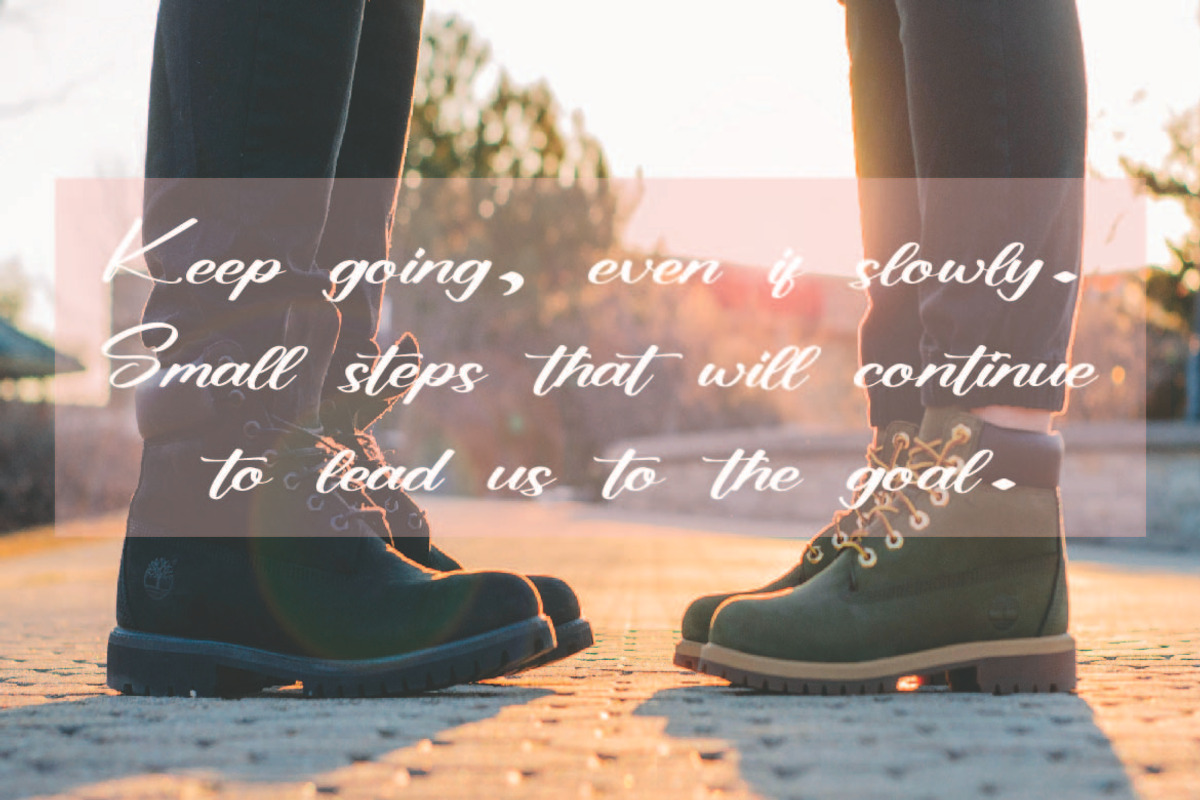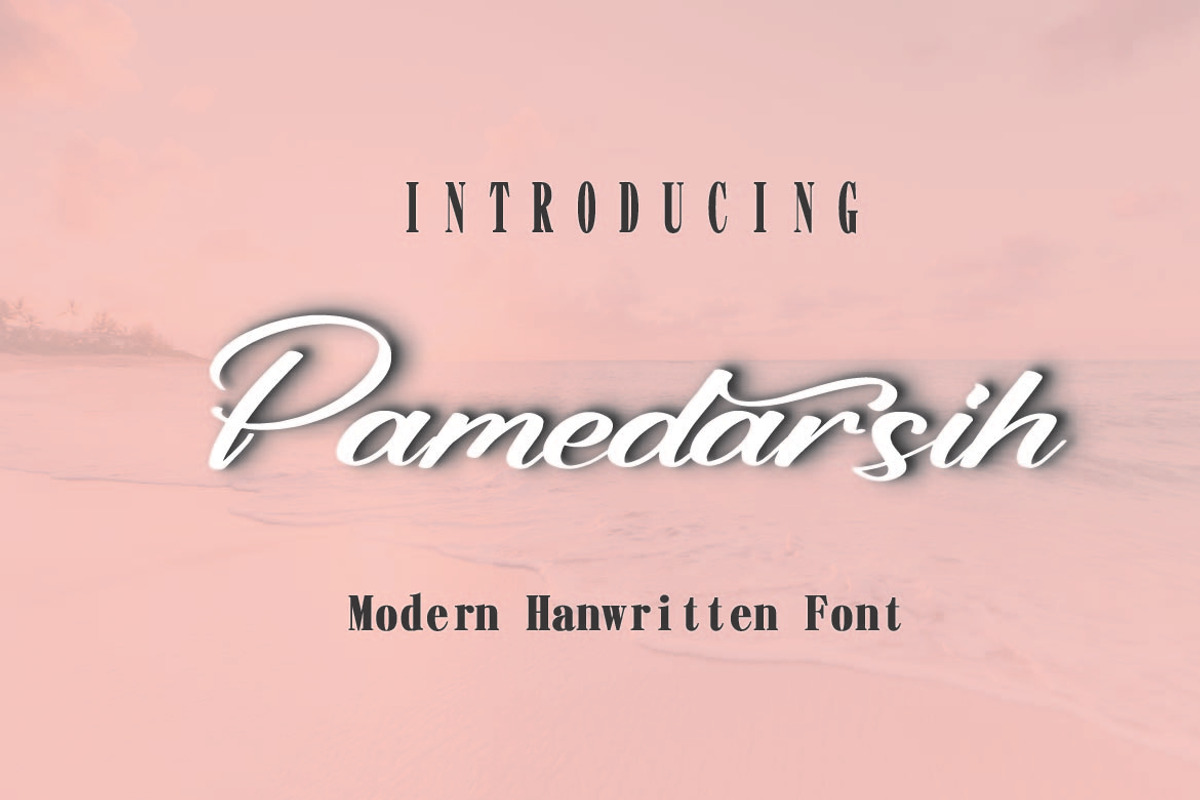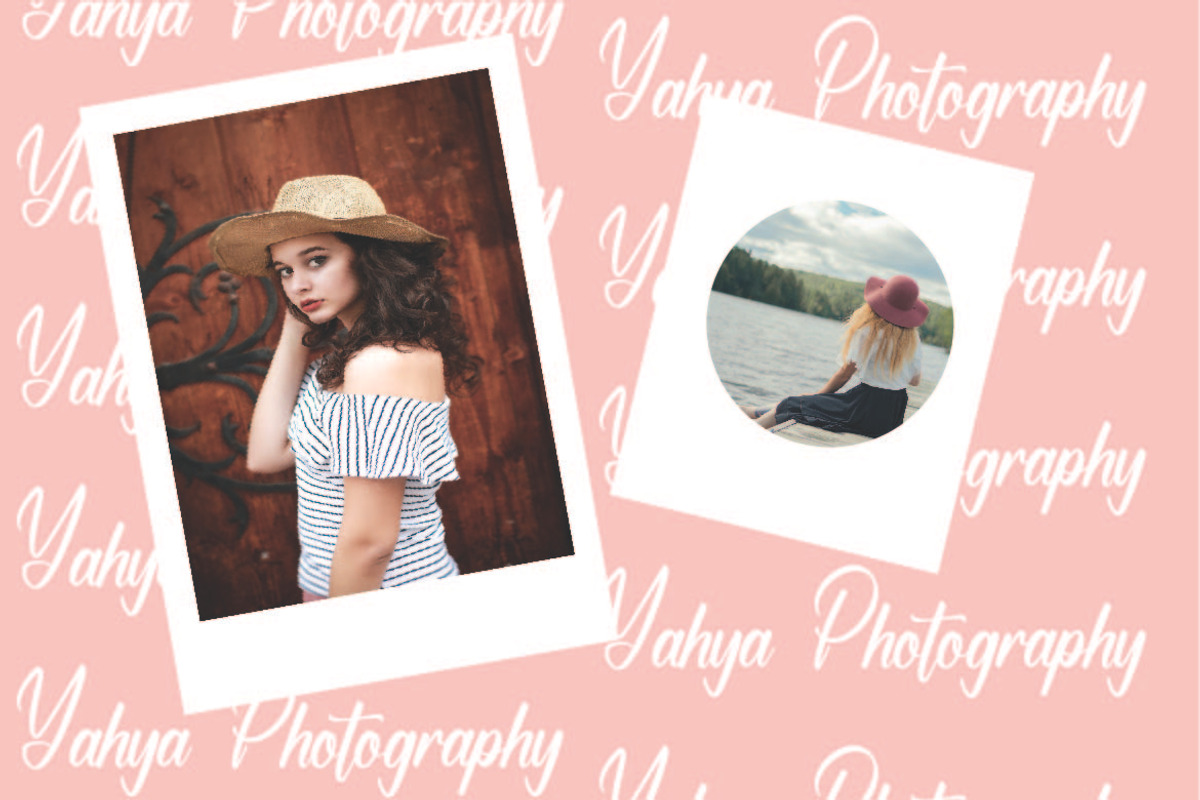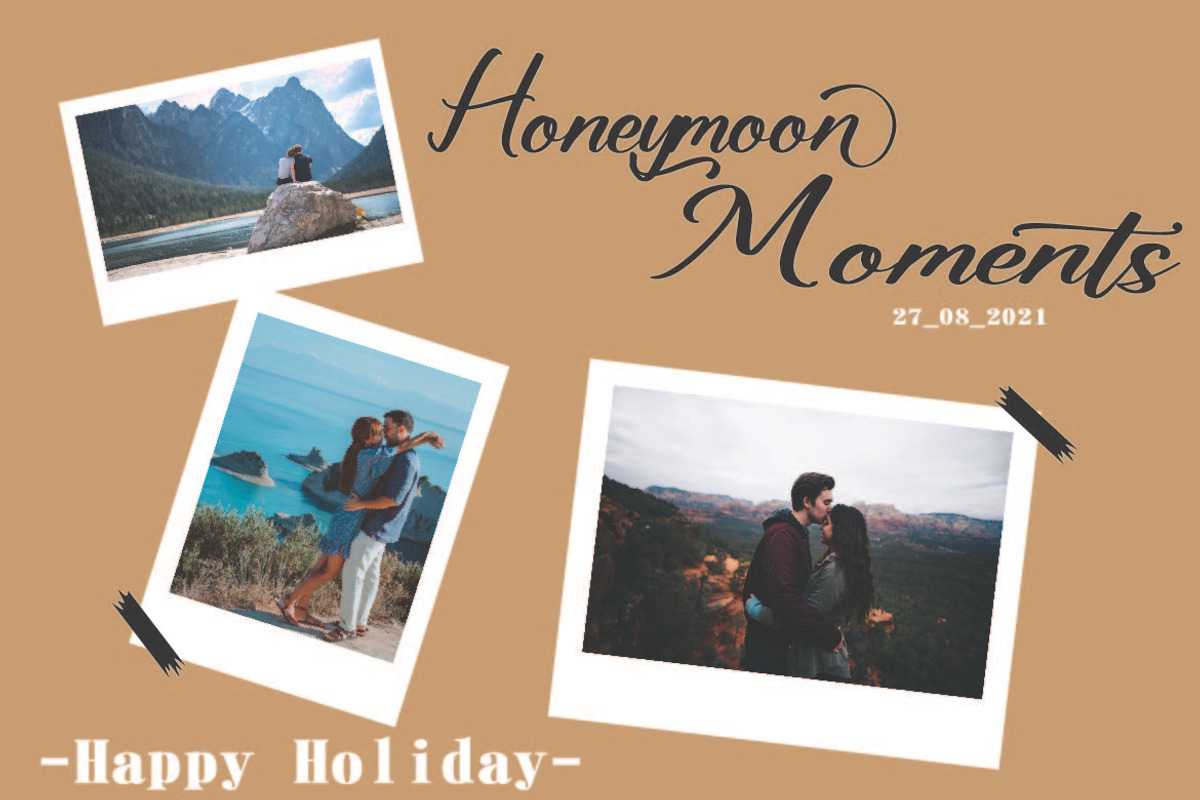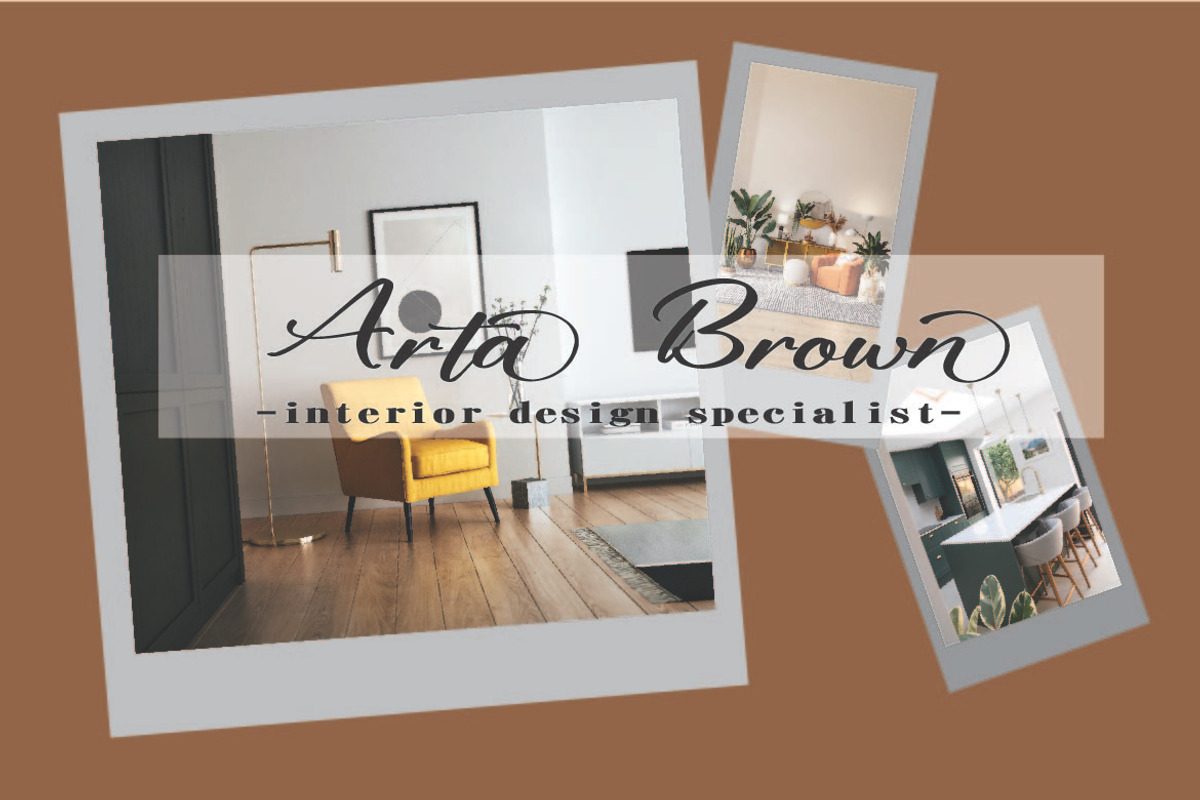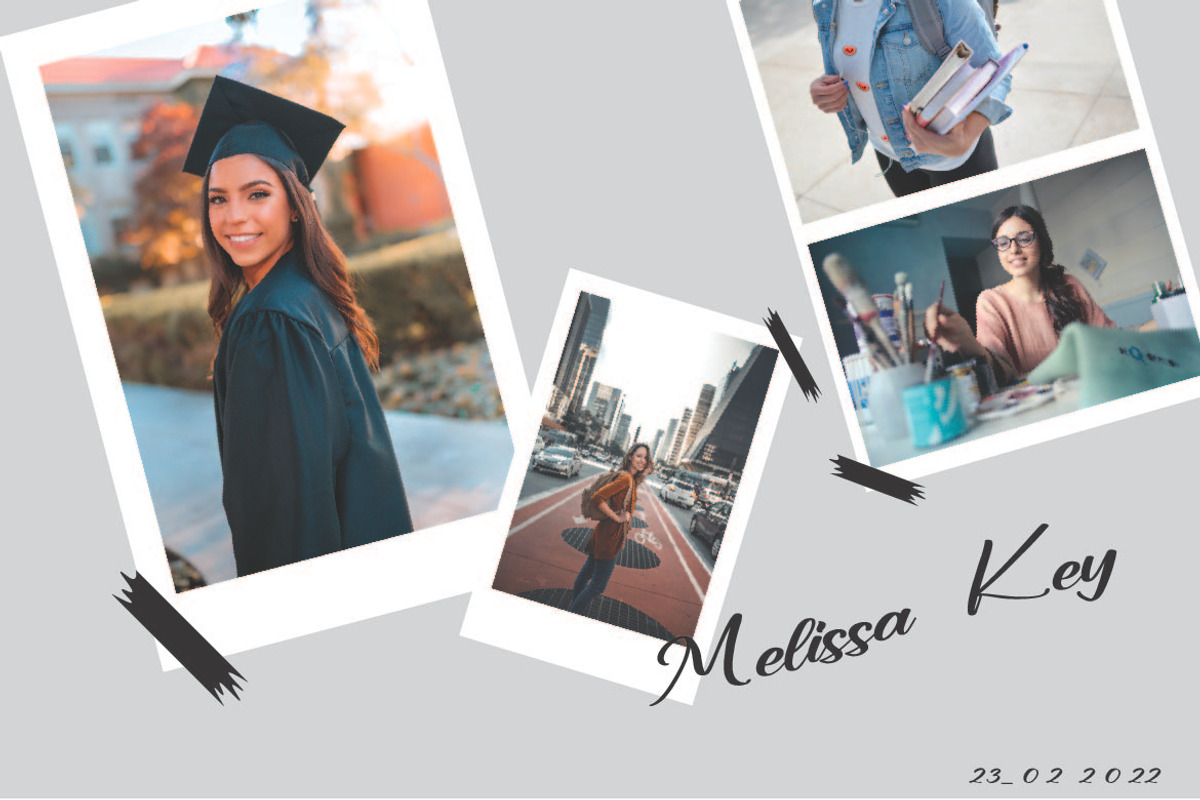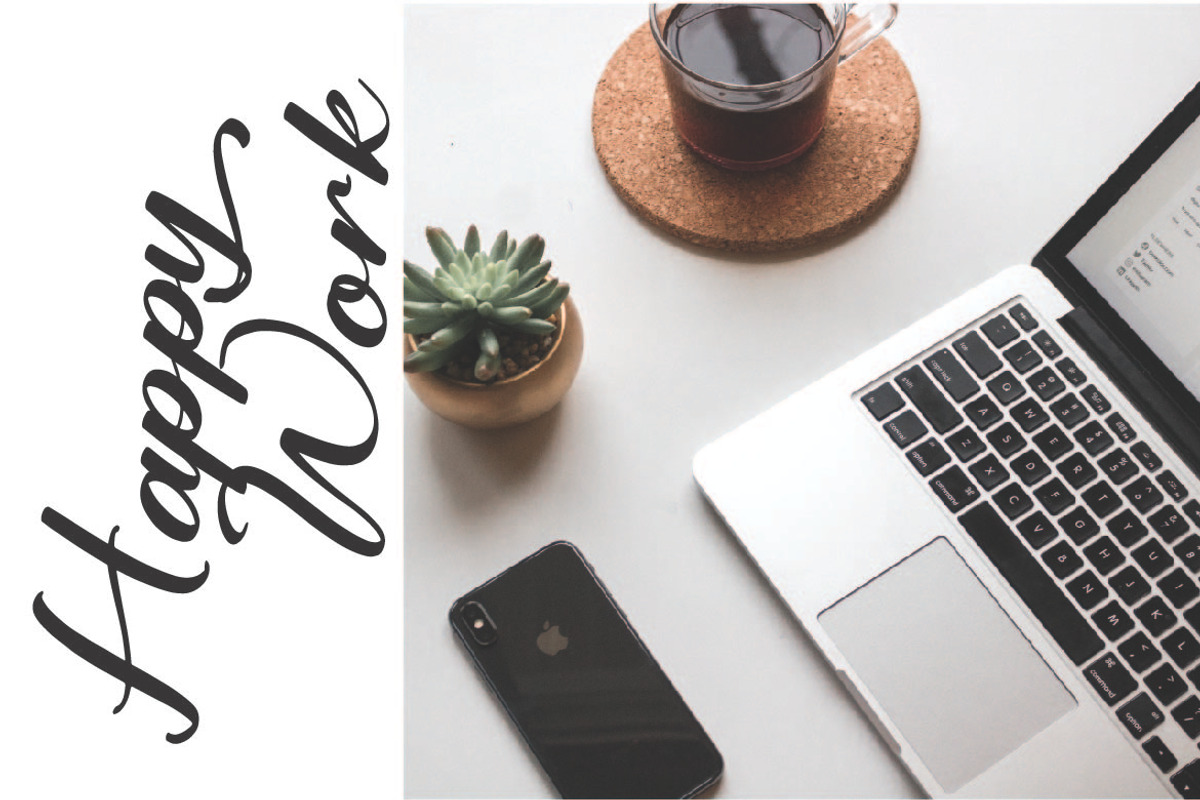
Pamedarsih
Pamedarsih, a handwritten script font inspired by handwriting with an aesthetic touch.
Pamedarsih is versatile enough for both web and print and can be used in a variety of projects such as stationery, packaging, apparel, wedding stationery, prints, quotes, social media graphics, planners, greeting cards, logos, branding, and much much more. The script includes a set of uppercase characters, numerals, symbols, two lowercase letter sets.
Full Set of standard alphabet and punctuation Extra set of ending stylistic set lowercase Handwritten ligatures